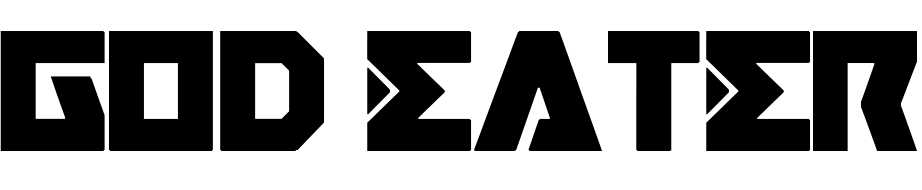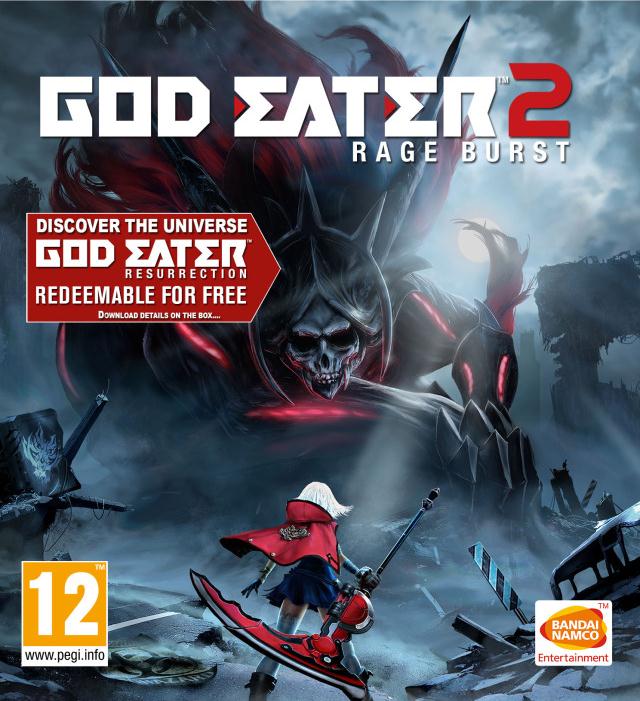
God Eater Font
ActionGod Eater is a series of sci-fi action role-playing video games developed by Shift and published by Bandai Namco Entertainment. The game is set in a post-apocalyptic world where humanity is under threat from monstrous creatures known as Aragami. Players take on the role of a God Eater, a special type of warrior with the ability to wield powerful weapons known as God Arcs. These weapons are the only known way to defeat the Aragami and protect humanity from their threat.
The God Eater logo is remarkably similar to a fan-made font called GodEater Regular. The font comes in uppercase letters, numerals, and limited punctuation marks. You can download it for free in the Fonts Used Section.